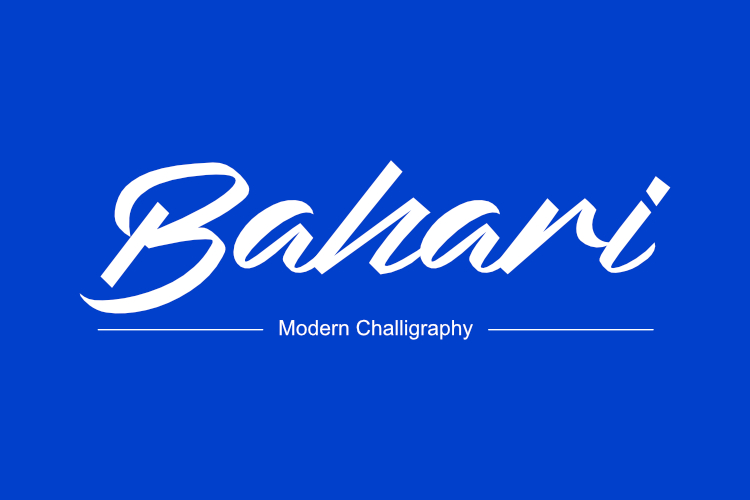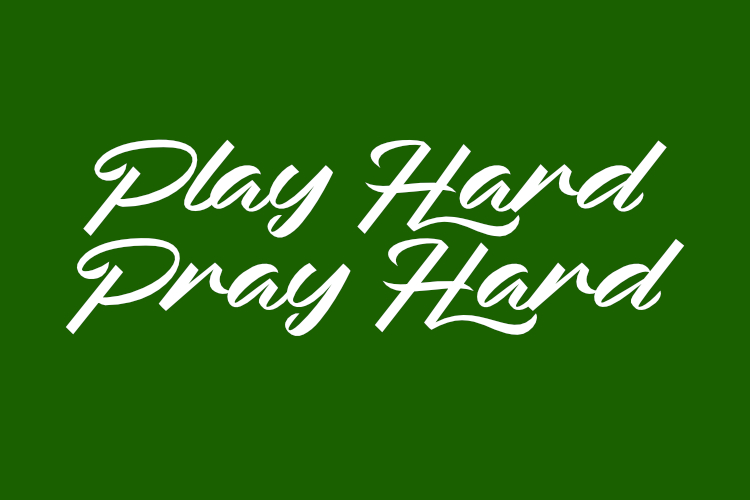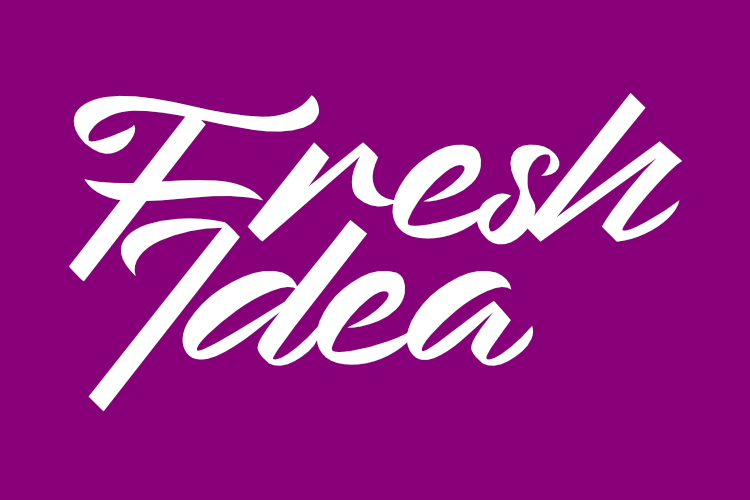
Empathy Script Font
Empathy is a beautiful and modern duo font. It combines a cute script with a great sans serif. Combining these two fonts on your next design will give a versatile and outstanding feel. This font is PUA encoded which means you can access all of the cute glyphs and swashes with ease! It also features a wealth of special features including alternate glyphs and ligatures.